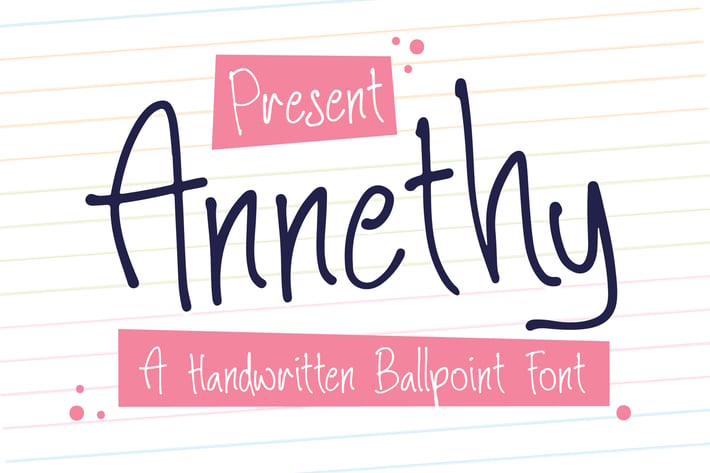
Annethy - A Handwritten Ballpoint Font
So beautiful on invitation like greeting cards, branding materials, business cards, quotes, posters, and more!